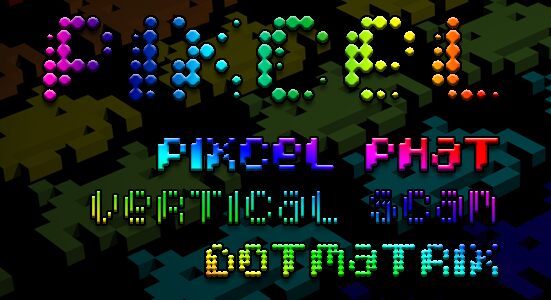
Pixcel Phat by TracerTong is a free techno display font with the blunt weight and simplified geometry of early arcade graphics. Broad, tightly drawn letters use rounded outer corners, squared openings, and abrupt gaps that make the alphabet look like custom electronic symbols.
As an electronic title treatment, it can turn game graphics and music posters into something close to a vintage control-panel readout. The same dense silhouette suits streetwear merchandise and club event branding, especially when the lettering needs to behave like a logo rather than ordinary text. Its clearest role is giving a game title its own machine-made world.